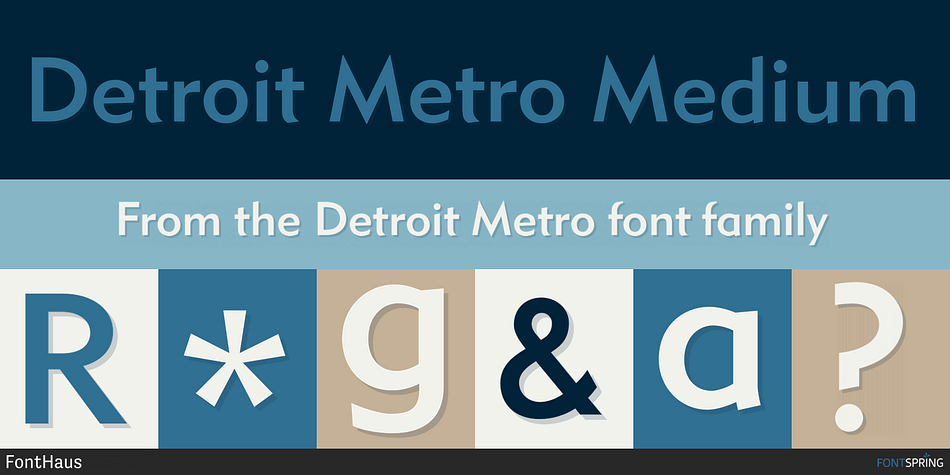
Detroit Metro Medium
Designed by William Dwiggins, Detroit Metro is a sans serif font family. This typeface has twelve styles and was published by FontHaus.
Detroit Metro® is a faithful version of the Dwiggins 1930 urban classic: Metro light, Metro medium, and Metro black.
In 1929, English type designer, William Addison Dwiggins, (WAD) was commissioned by the Merganthaler Type Foundry to design a warmer, more humanistic, and less mechanical sans to effectively compete with Futura, a highly-popular geometric sans designed by Paul Renner in 1927 and first released by Meganthaler’s arch-rival, the Bauer Type Foundry in Germany.